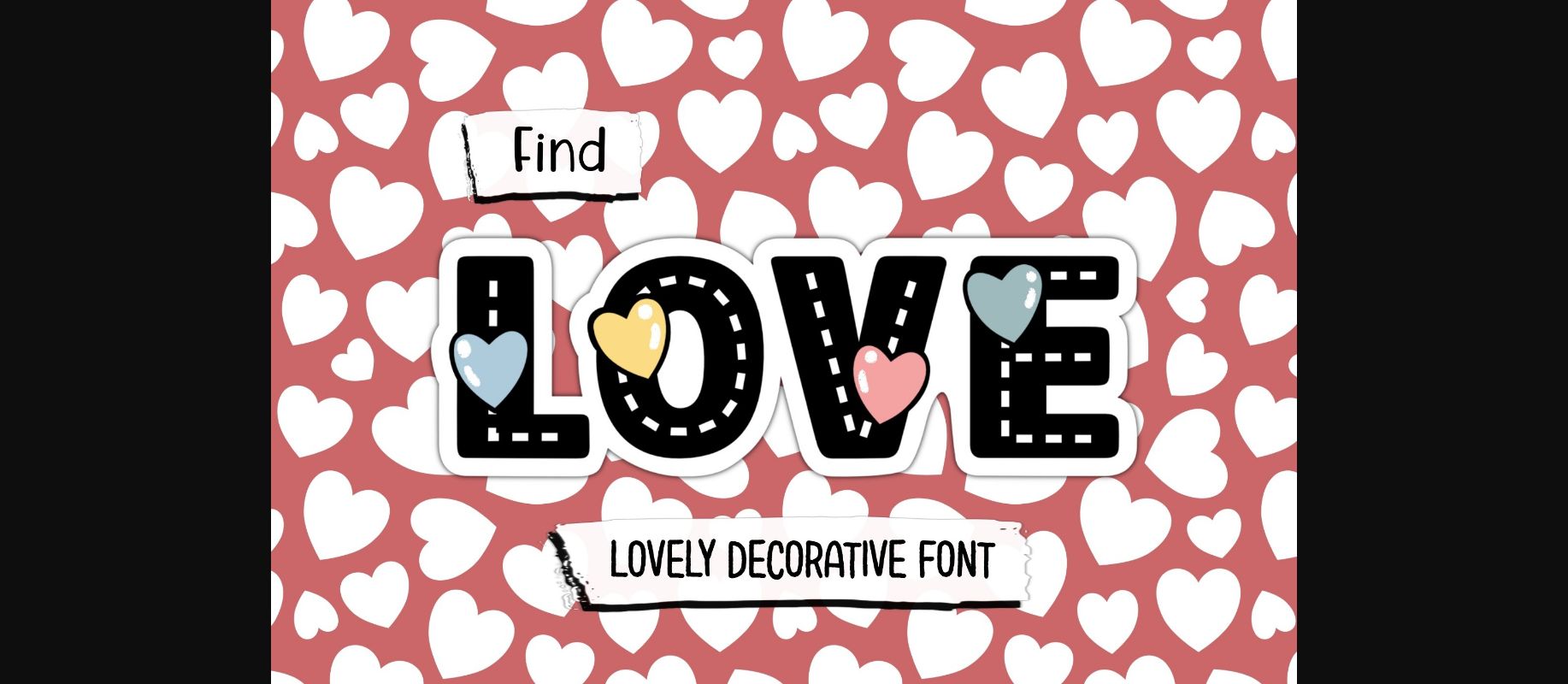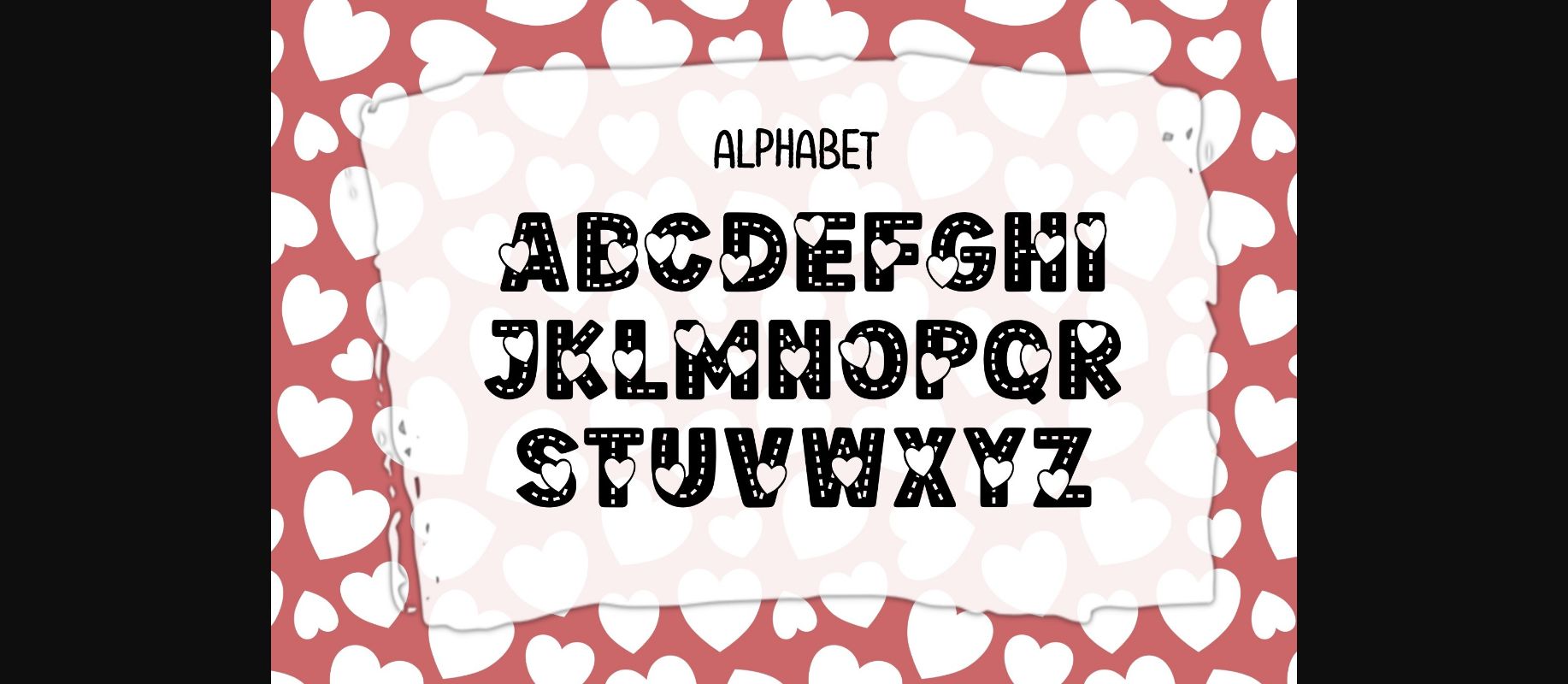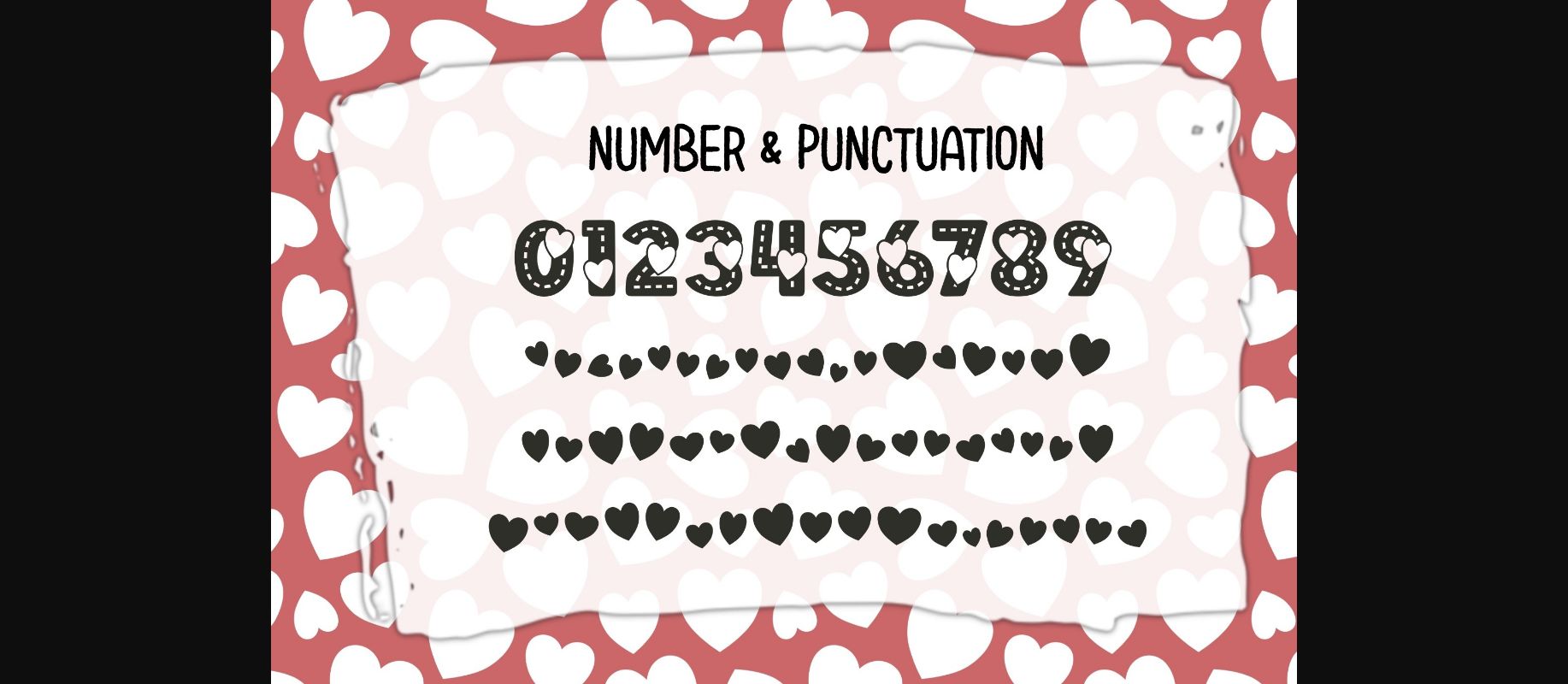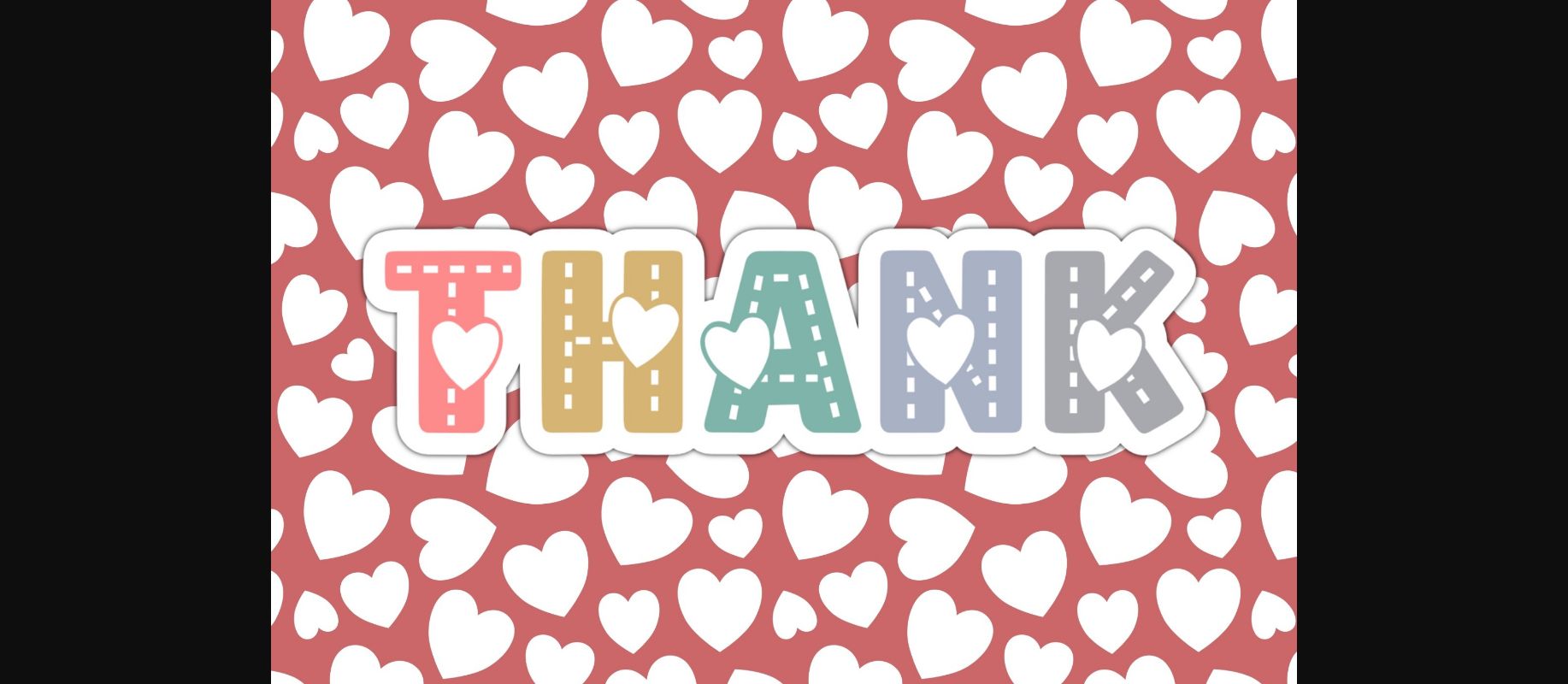
Decorative Fonts Find Love Font 0 156 FacebookTwitterPinterestWhatsApp 1 of 6 ... Find Love Font Poster 2... Find Love Font Poster 3... Find Love Font Poster 4... Find Love Font Poster 5... Find Love Font Poster 6... About Find Love Font Find Love is a lovely decorative font. Use it for branding projects, invitations, web graphics, cards, and many more! DOWNLOAD NOW